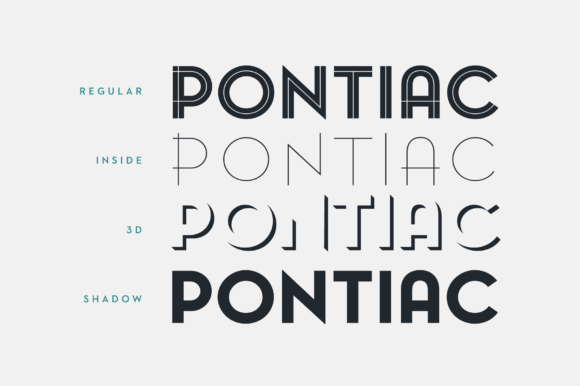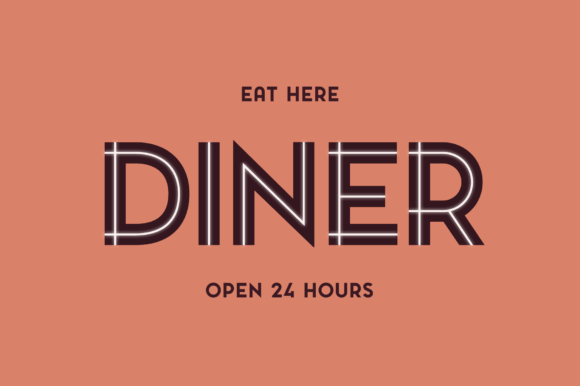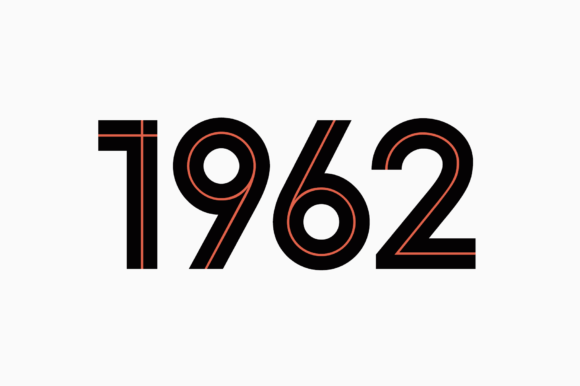
Introduction to Pontiac Inline Font
Remember the moment when you stumbled upon that perfect font for your creative project? The one that elevates your design from good to great? For designers, finding that elusive font can be a game-changer. One such font that can bring an unusual and modern feel to your designs is the Pontiac Inline Font, a beautifully crafted Art Deco masterpiece.
Designed in the City of Light, Paris, this layered font boasts a finely balanced inline design that can be further enhanced to take your designs to the next level. With its high-quality design and transparent background, the Pontiac Inline Font is a valuable resource for any creative project. Whether you’re working on a logo, typography-based design, or a brochure, this font is sure to make a lasting impression.
Pontiac Inline Font
• High-quality font designed for creative projects, making it a valuable design resource.
• Features a transparent background, allowing for seamless integration with various backgrounds.
• Designed with a modern and sleek aesthetic, making it perfect for contemporary design projects.
• Perfect for use in logos, branding materials, and other creative projects where a clean and minimalist design is desired.
Honest Review: Pontiac Inline Font
• What works well: ✨ The Pontiac Inline Font is incredibly versatile, making it suitable for a wide range of design styles and themes. Its clean and modern design also ensures it doesn’t get lost in the background, even with a transparent background.
• What works well: ✨ The font is incredibly easy to use, with a seamless integration into various design software. I’ve used it for everything from branding materials to digital marketing campaigns.
Overall, I’m thoroughly impressed with the Pontiac Inline Font. Its high quality design, versatility, and ease of use make it an excellent addition to any design resource library. If you’re looking for a reliable and stylish font for your creative project, I highly recommend giving it a try.
Pontiac Inline Font
The Pontiac Inline Font is a high-quality design resource perfect for any creative project. This font features a transparent background, making it easy to use and customize in various design applications.
Tips for Getting the Most Out of Pontiac Inline Font
To get the most out of the Pontiac Inline Font, use it for headings and titles in your design projects. This font is perfect for creating a clean and modern look. You can also experiment with different font sizes and colors to add visual interest.
The Pontiac Inline Font is suitable for various creative projects, including brochures, flyers, business cards, and websites. Its clean and modern design makes it perfect for any project that requires a professional look.
Compared to Pontiac Inline Font, Open Sans is more versatile and suitable for a wide range of applications, including body text and headings. It lacks the inline feel of Pontiac Inline Font but excels in readability and aesthetic appeal.
Lato is a modern sans-serif font with a transparent background, making it perfect for creative projects requiring a sleek and sophisticated look. It’s a great design resource for logos, headings, and body text, and its free download option makes it accessible to designers of all levels.